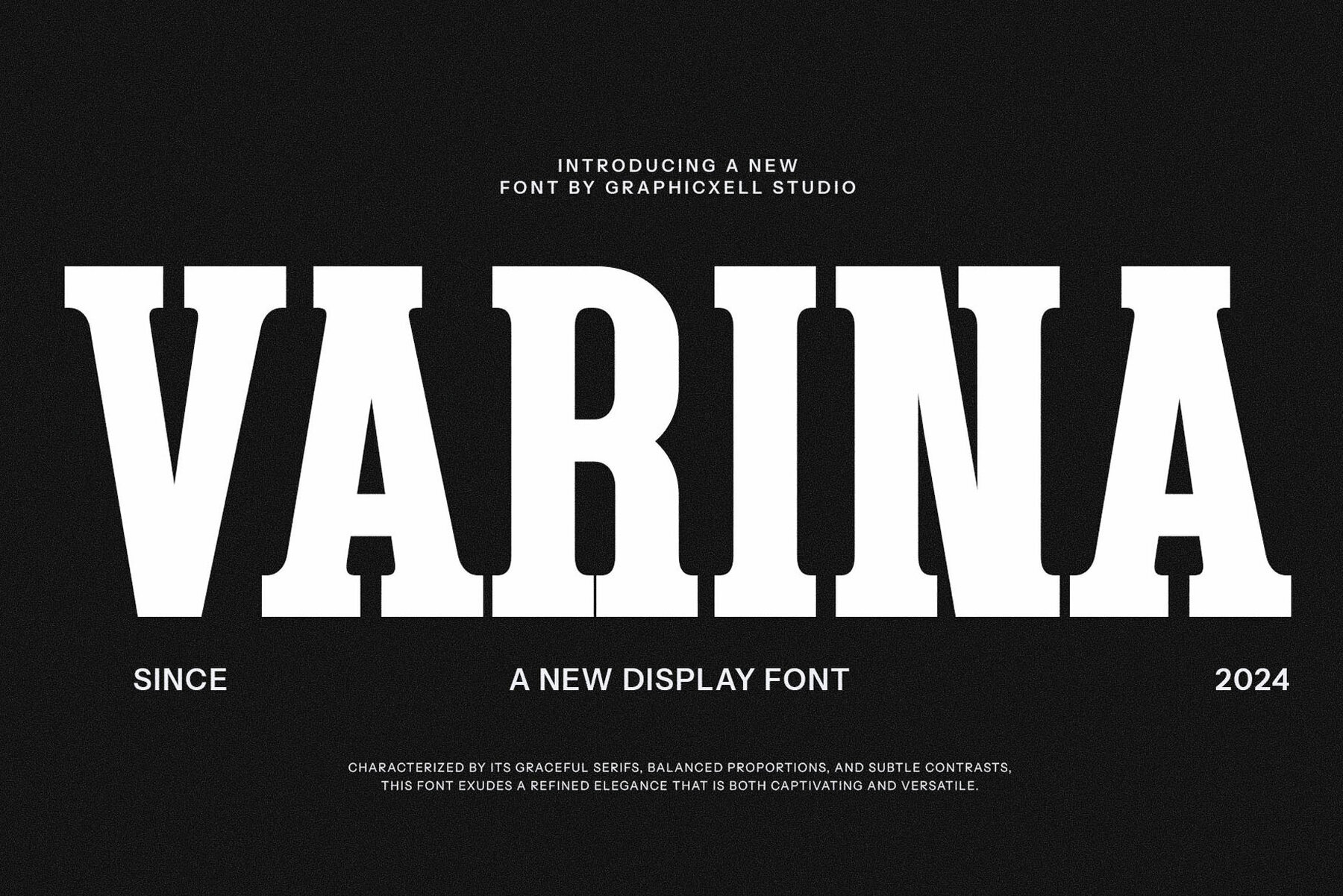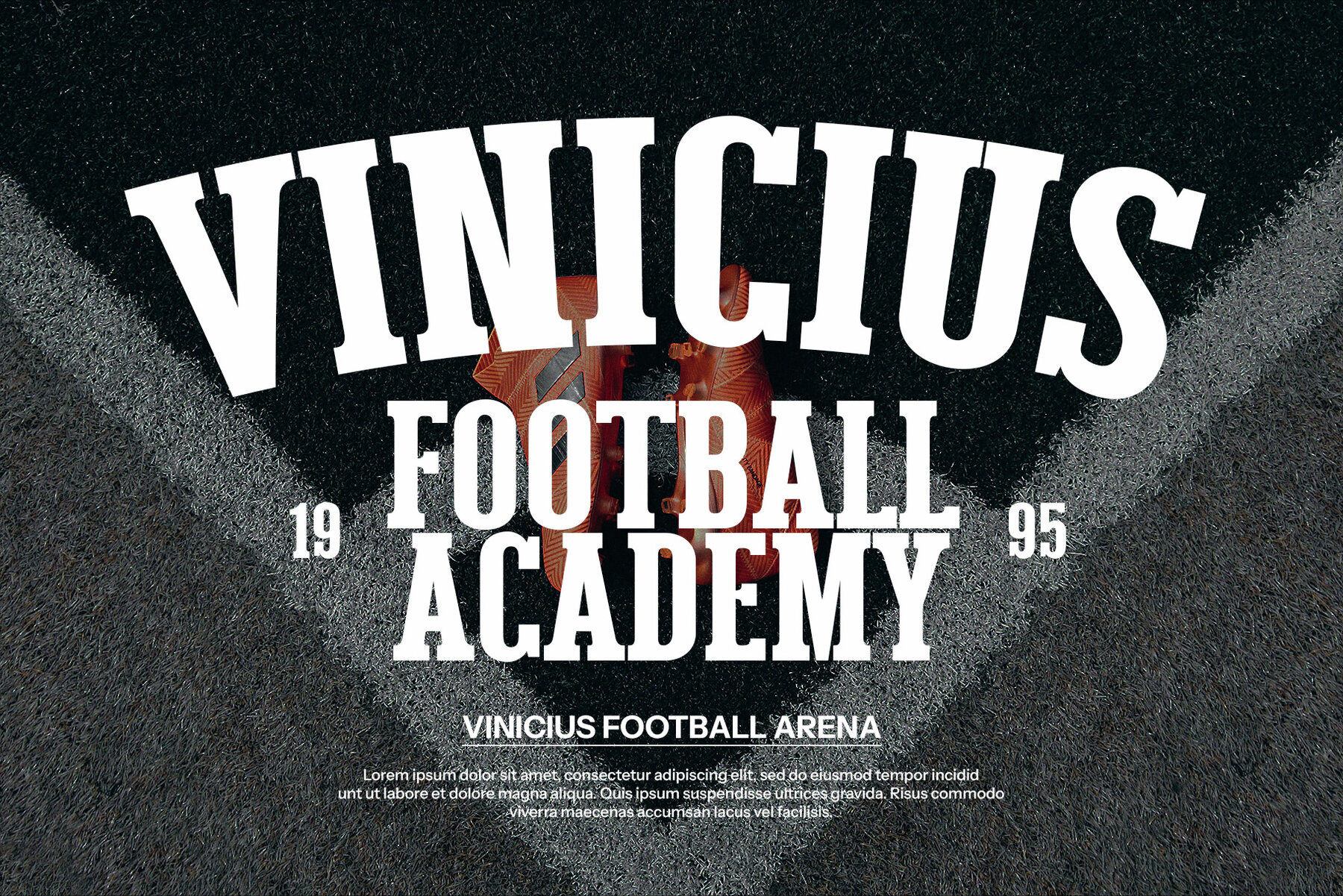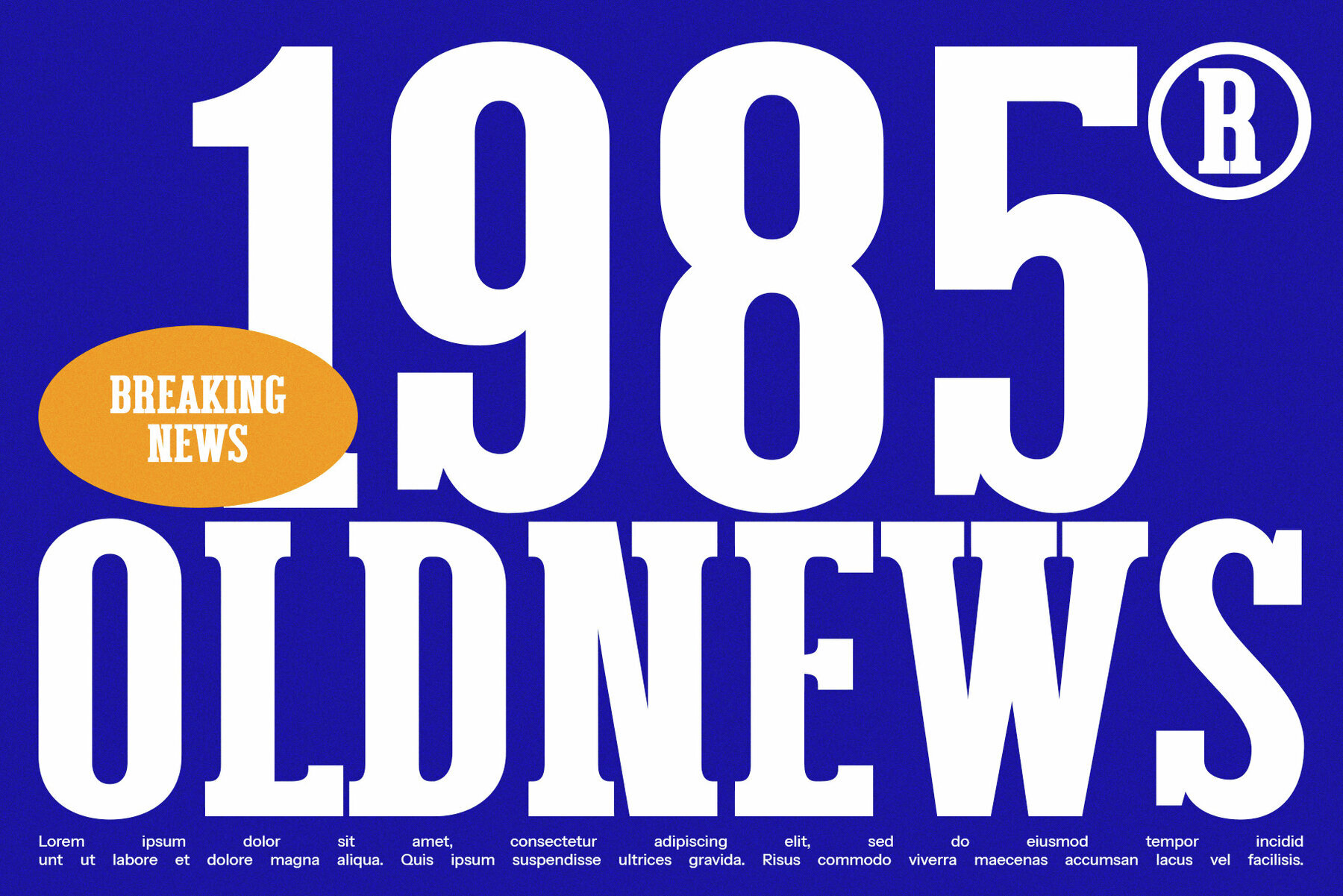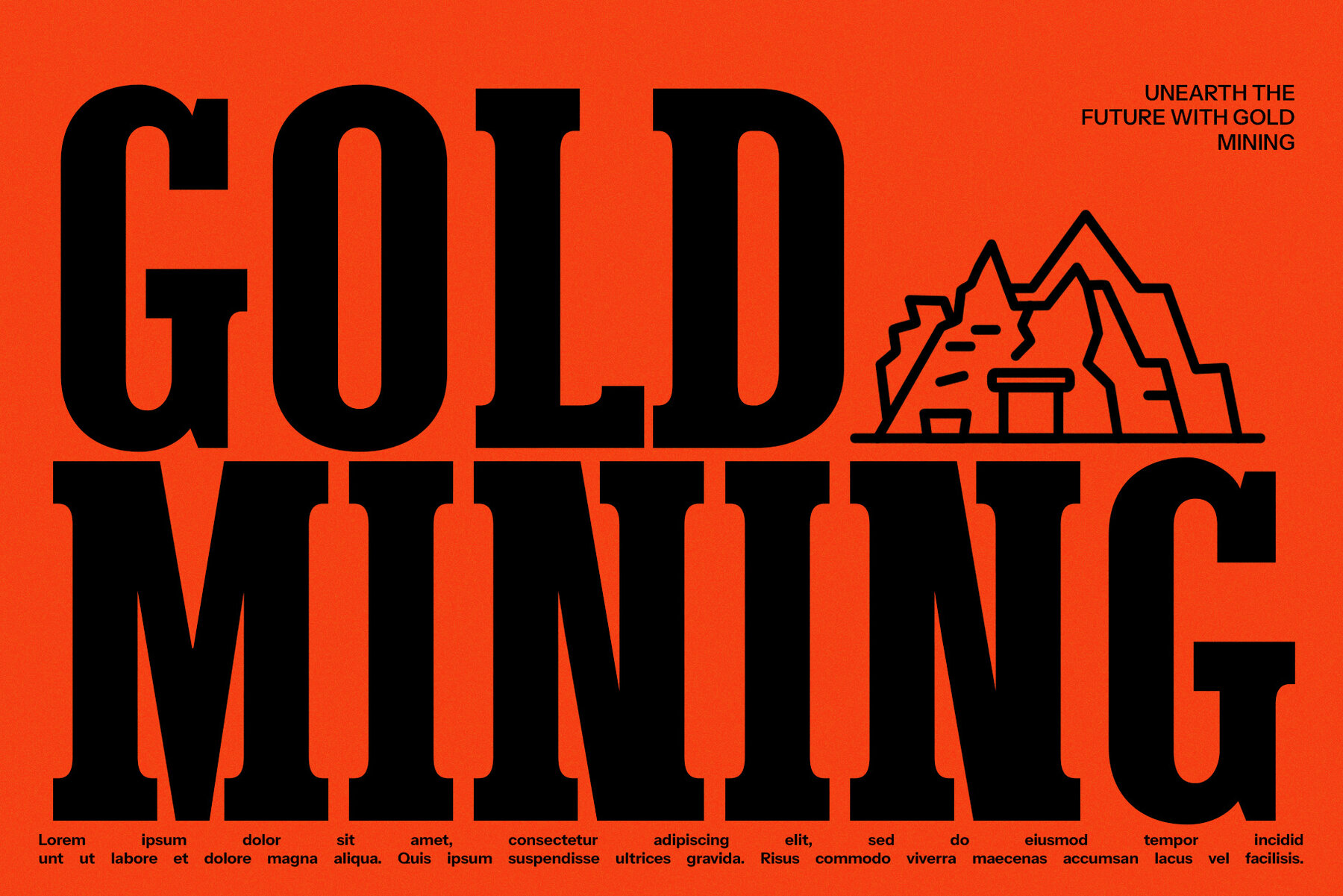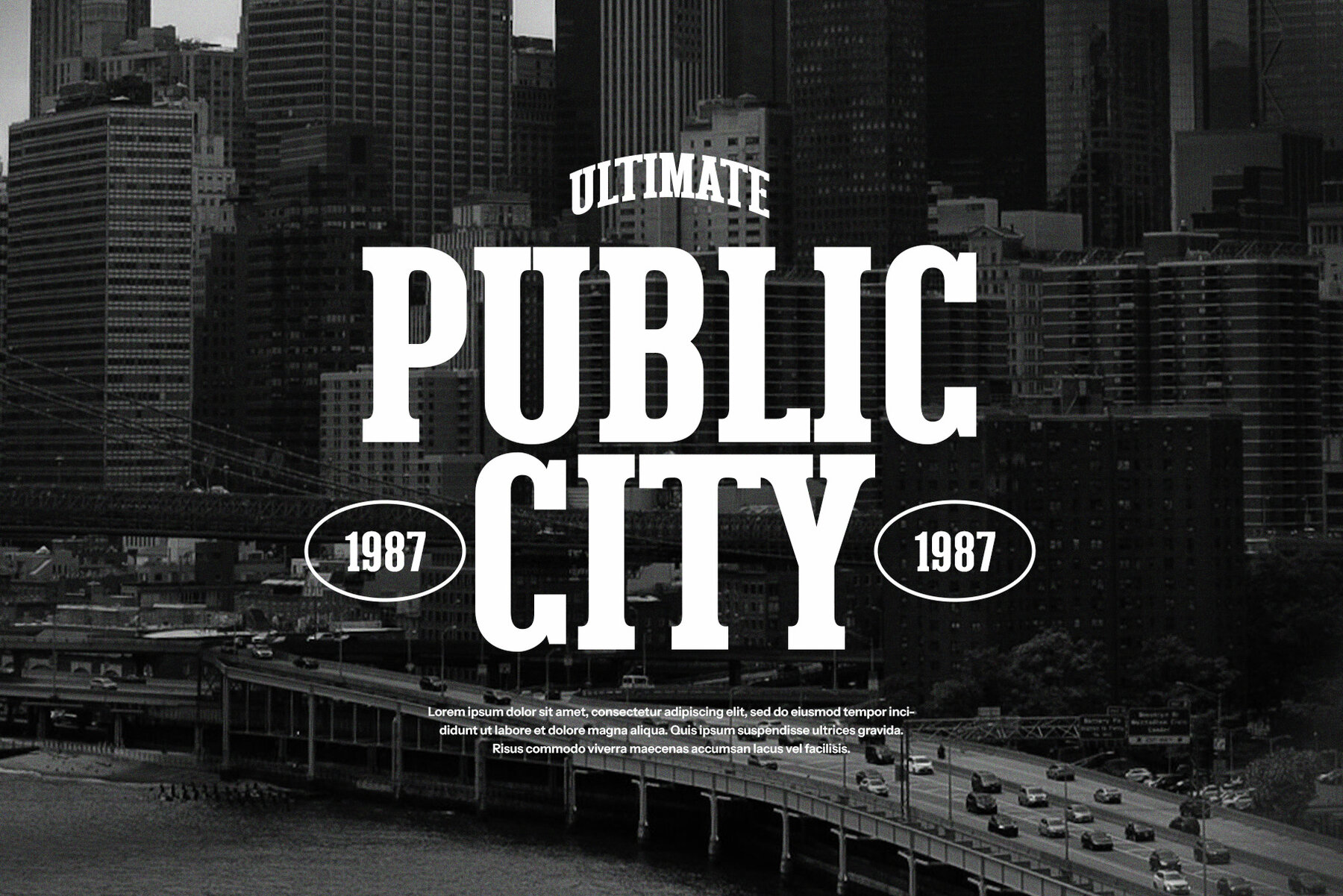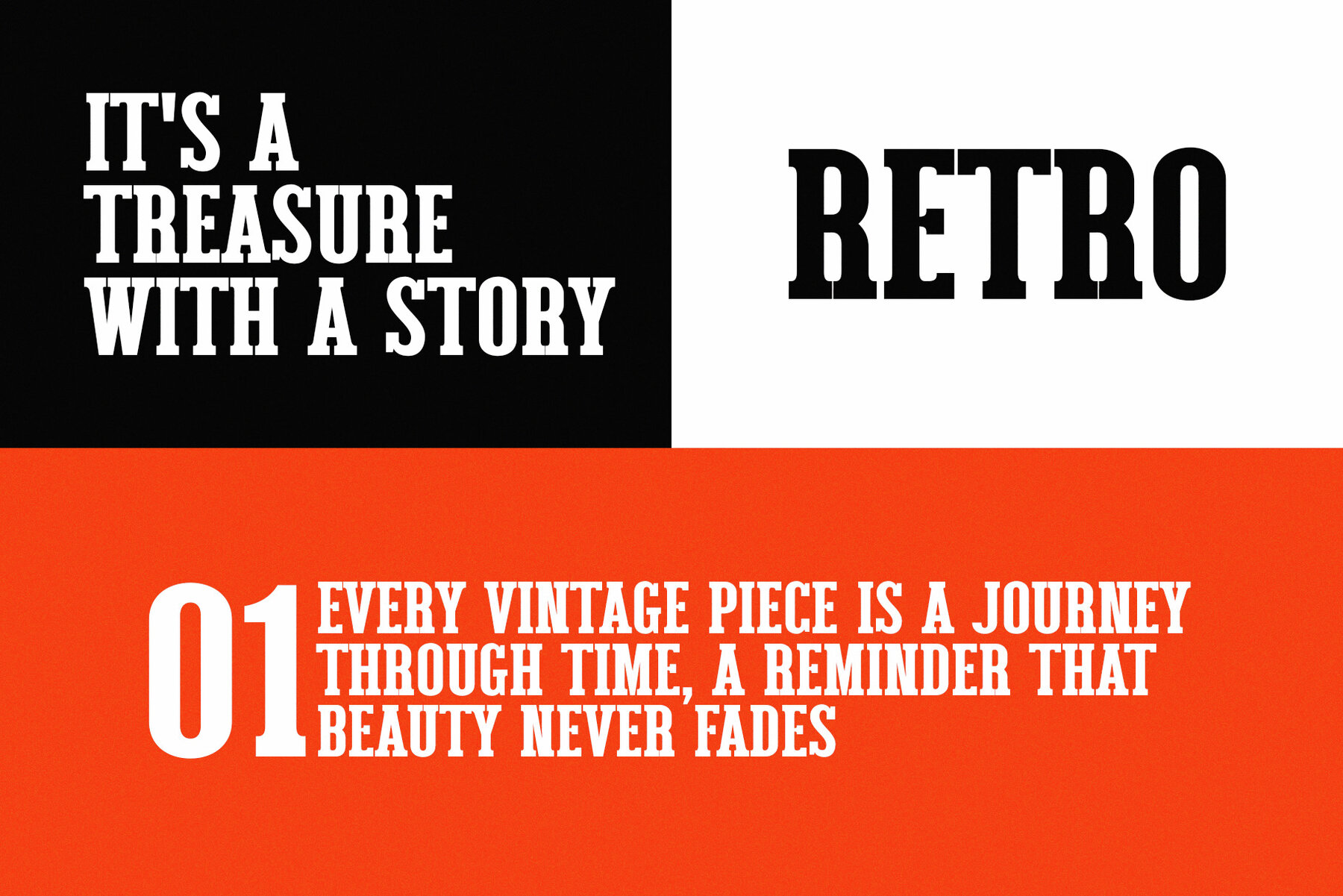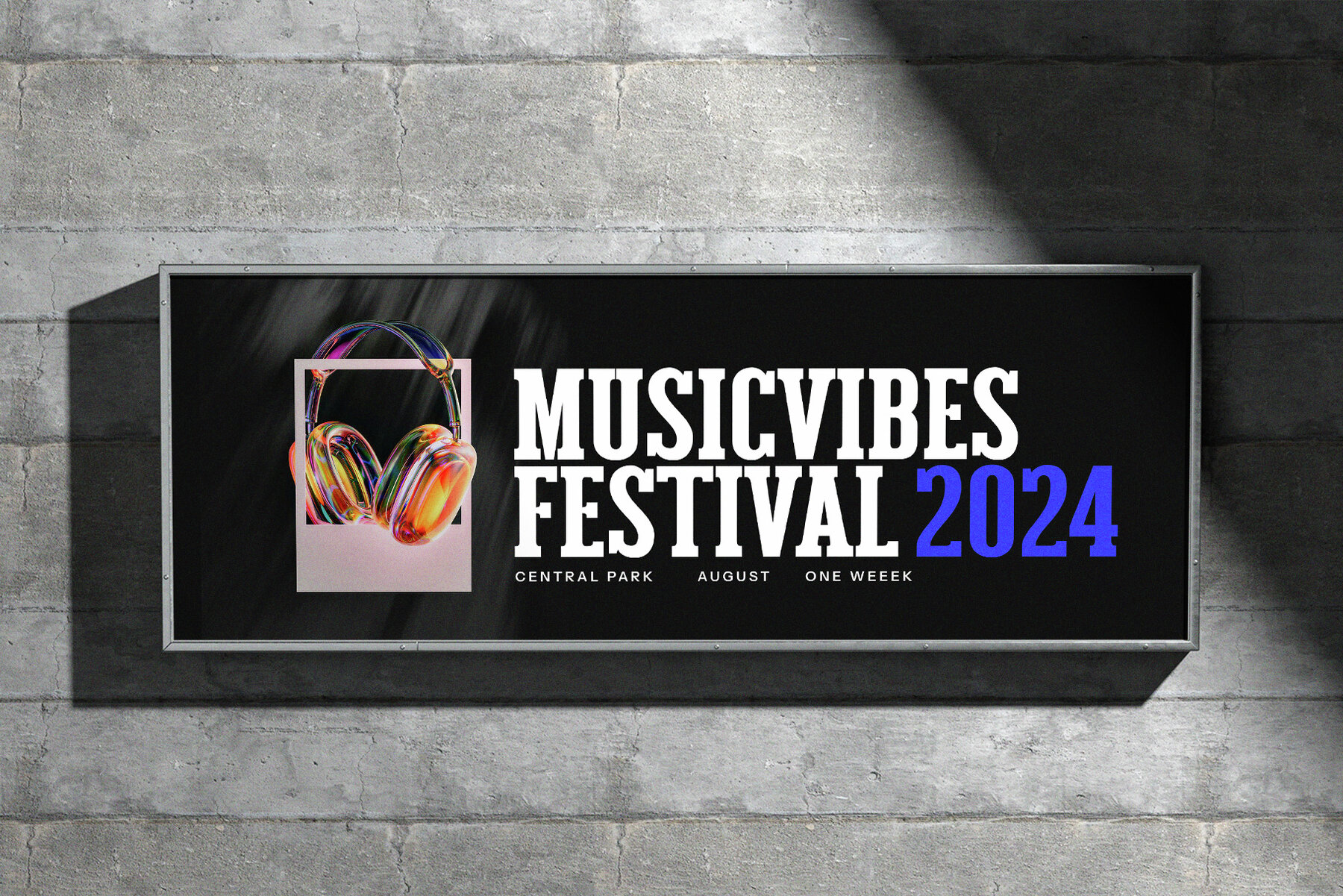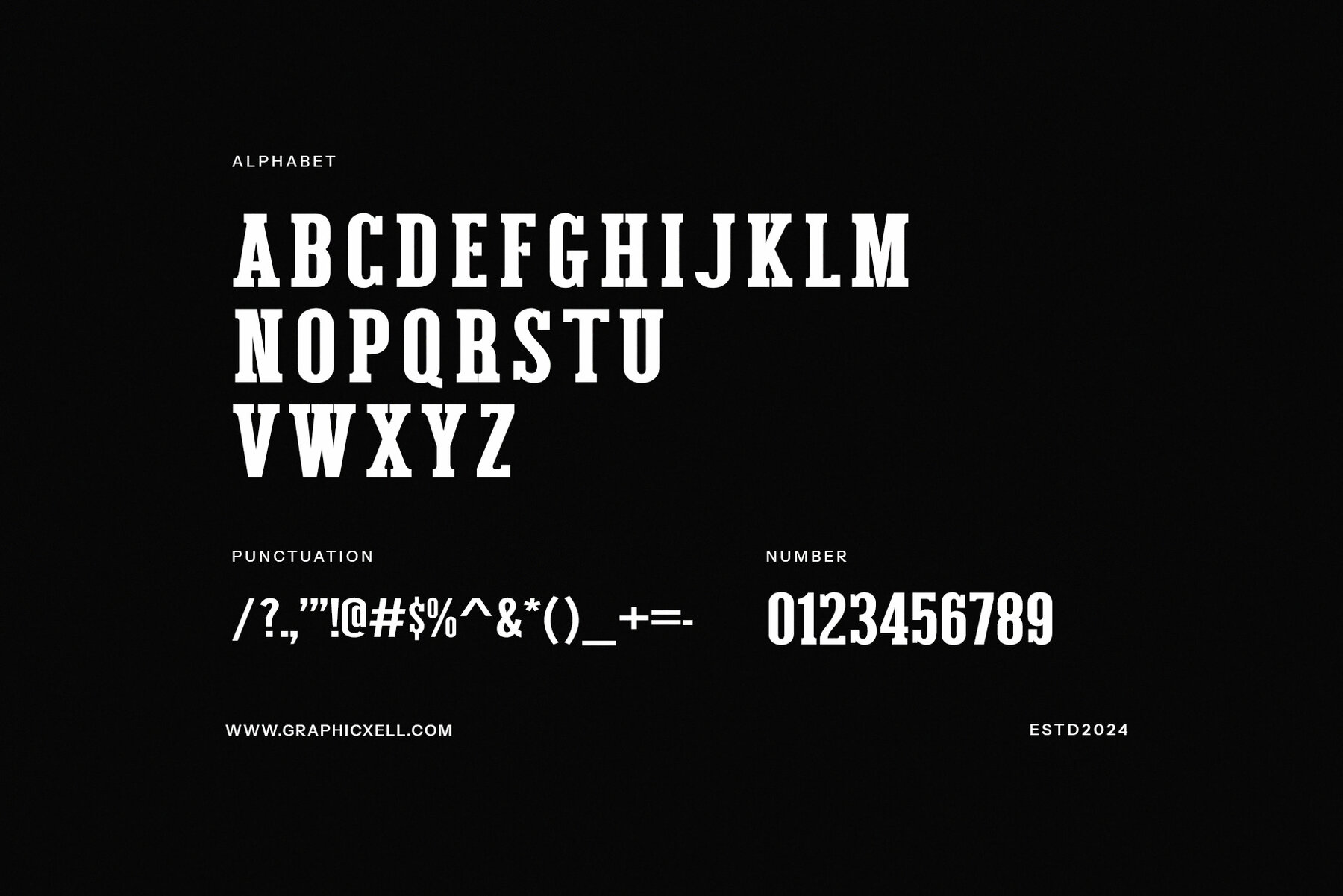
Varina Font
Varina Regular
Varina is a refined vintage slab serif font that masterfully combines traditional elements with modern design aesthetics. Its robust structure and polished lines make it an excellent choice for projects that require a touch of elegance and sophistication. Perfectly suited for branding, packaging, logos, and headline text, Varina adds a timeless charm to any design. Its unique character shapes and attention to detail ensure legibility and visual impact across various applications.
This font includes an extensive character set, offering uppercase, lowercase, numerals, punctuation, and multilingual support. Its versatility makes it ideal for a range of design projects, from classic book covers to contemporary web designs. Whether you're crafting a luxurious brand identity or creating eye-catching marketing materials, Varina delivers a vintage yet fresh appeal that stands out.